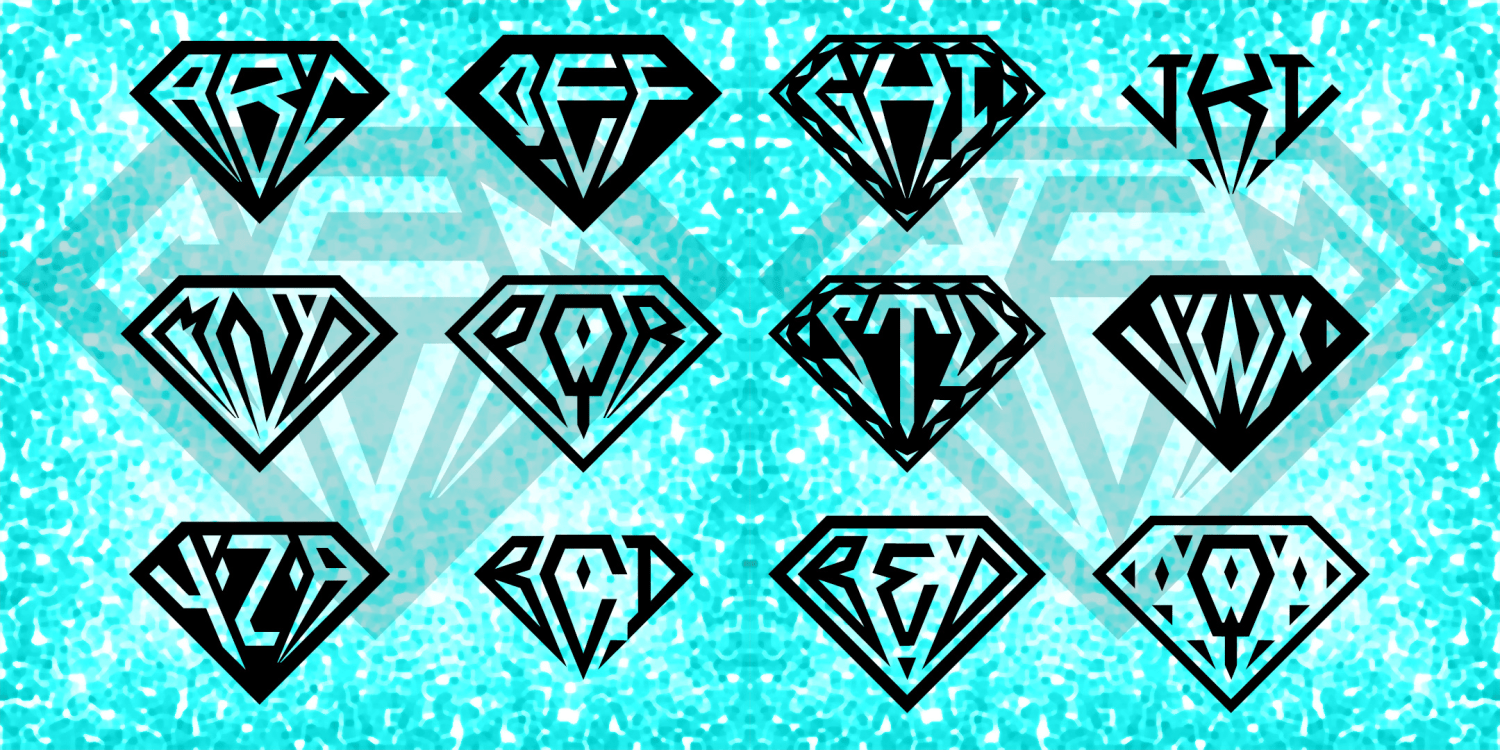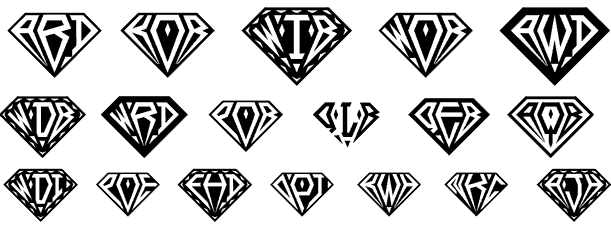
Gem Monograms
Gem Monograms is set of 2 fonts that let you create custom 3-letter monograms in a unique faceted gem shape. Choose black letters on white or white letters on black. Also works for 1-letter monograms and "A&B" style monograms.